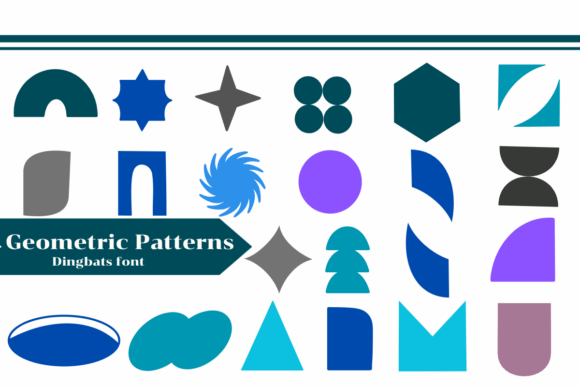
Discover the Perfect Blend of Art and Function with the Geometric Patterns Font
Have you ever stared at a blank canvas, feeling like the perfect design is just out of reach? You know, that moment when the only thing standing between you and a brilliant idea is the right font? That’s where the Geometric Patterns Dingbats Font comes in – a game-changing collection of shapes and symbols that will breathe new life into your projects.
With its eclectic mix of angular, circular, and abstract shapes, the Geometric Patterns Font is the ultimate tool for designers looking to add a touch of modern minimalism to their work. From branding and logos to packaging and textile design, this versatile set is perfect for creative layouts that require a unique and eye-catching aesthetic.
Geometric Patterns Font Key Features
- Font Family: Geometric Patterns Font offers a wide range of geometric pattern styles, including chevrons, herringbone, and hexagons, making it ideal for creating visually appealing designs.
- Unique Characteristics: The font’s geometric patterns can be customized in terms of color, size, and orientation, allowing designers to create unique and engaging visual effects.
Geometric Patterns Font Review
As a designer, I was excited to dive into the Geometric Patterns Font. Overall, I think it’s a solid addition to any designer’s toolkit. Here are some of its strengths:
- ✨ Unique aesthetic: The geometric patterns add a modern and edgy feel to any design, making it perfect for trendy projects.
- ✨ Easy to customize: The font comes with various customization options, allowing designers to tailor the look to fit their specific needs.
- ⚠️ Limited character set: The font includes only basic characters and symbols, which may limit its use in more complex designs.
- ⚠️ May not work well with small text: The geometric patterns can make small text difficult to read, especially for those with visual impairments.
Overall, I think the Geometric Patterns Font is a great option for designers who want to add some visual interest to their projects. While it has some limitations, its unique aesthetic and customization options make it a valuable addition to any designer’s toolkit.
Some common use cases for Geometric Patterns Font include:
- Creating bold and eye-catching headings.
- Adding visual interest to presentations and documents.
- Designing unique and modern graphics.
Remember to experiment with different font sizes, colors, and alignments to get the most out of Geometric Patterns Font.